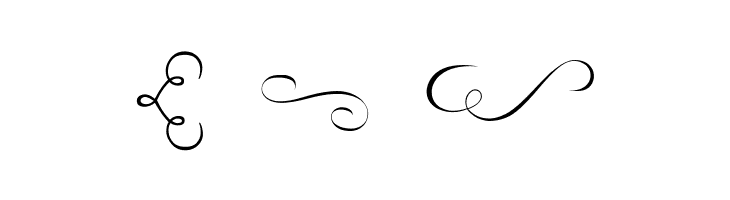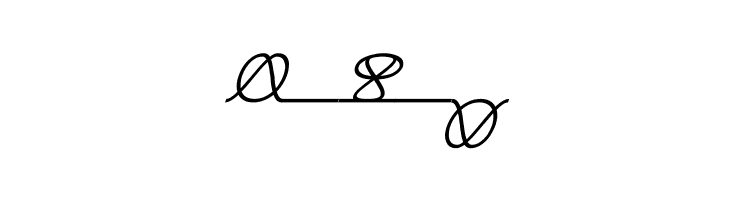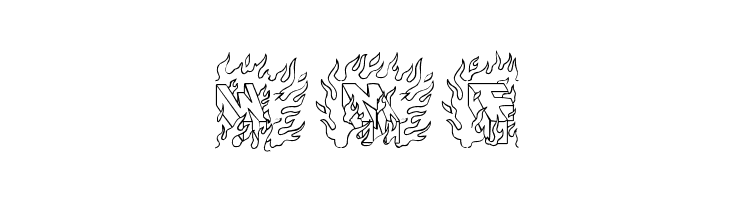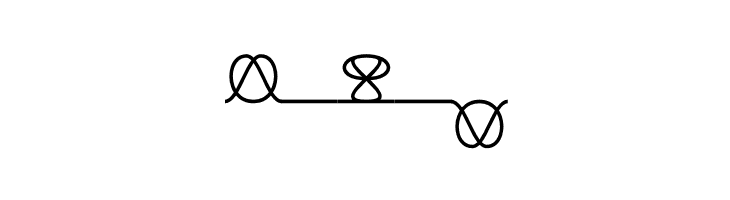
An abstract, decorative design with intricate loops and curves.
A decorative and abstract font with intricate loops and curves, ideal for artistic projects.
An intricate, decorative script font with elaborate loops and swirls.
An ornate and decorative font with intricate loops and swirls, offering a cursive and elegant style.
A playful, casual handwritten font with smooth, flowing lines.
The image contains decorative flourishes, not a font.
A playful and quirky font with rounded and angular elements.
A bold, flame-embellished decorative font with intense visual impact.
A collection of graphic symbols with bold, intricate designs and a street art aesthetic.